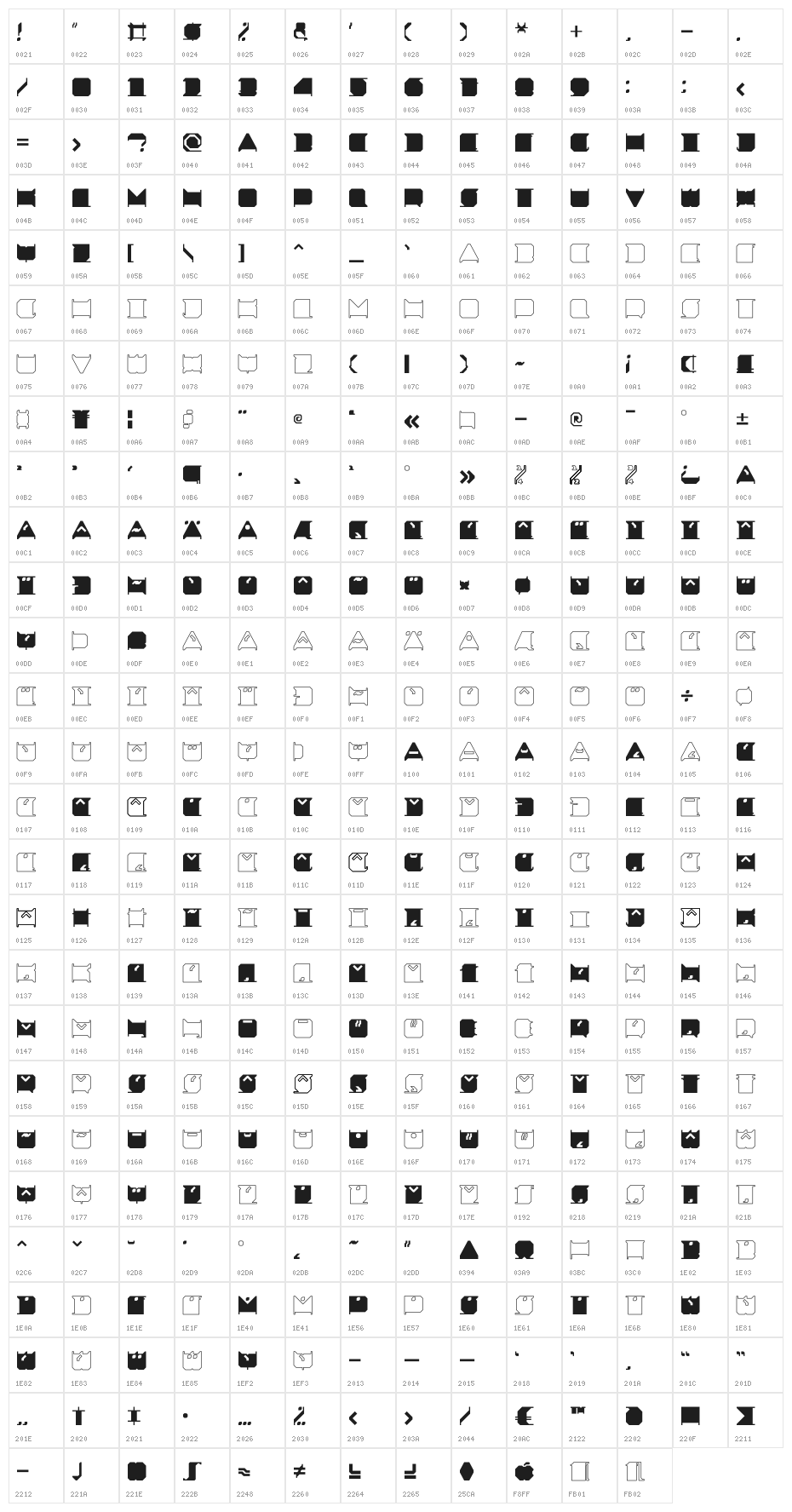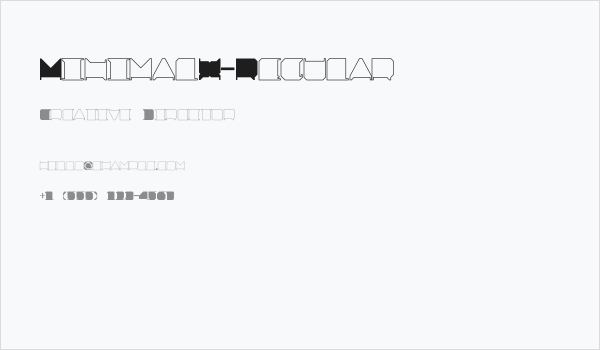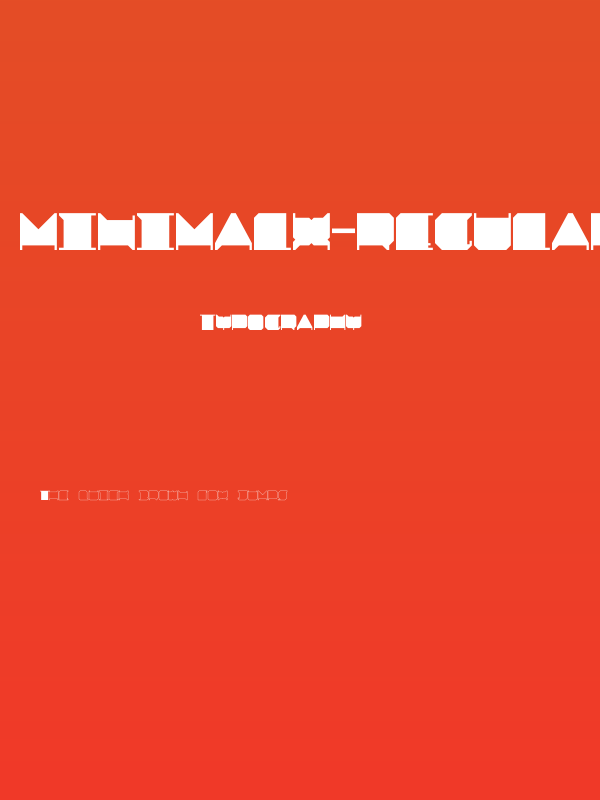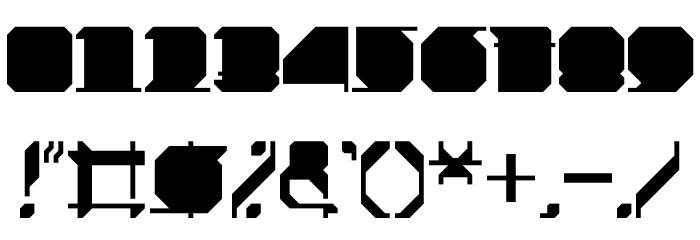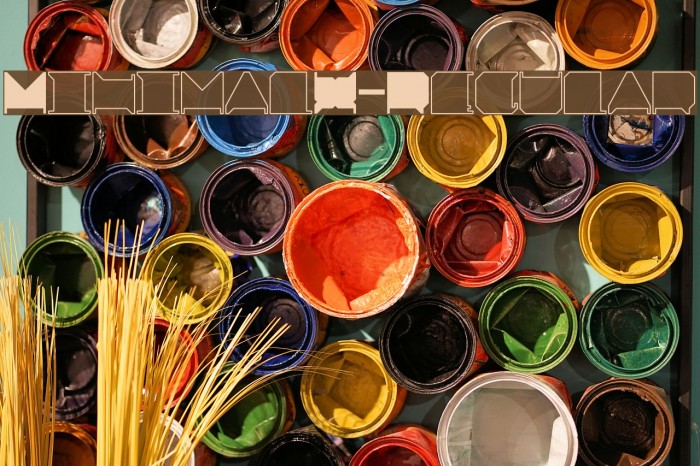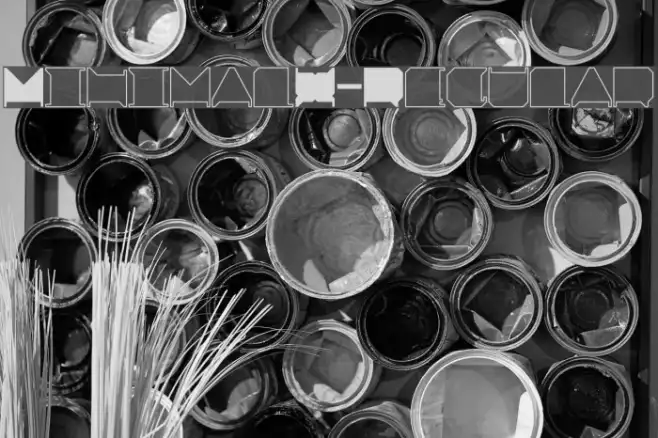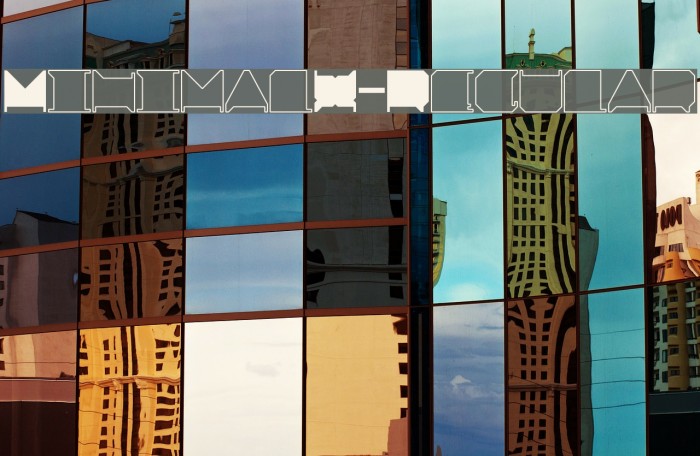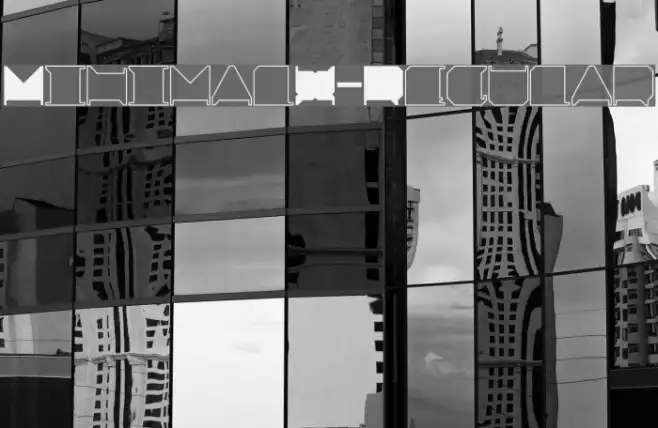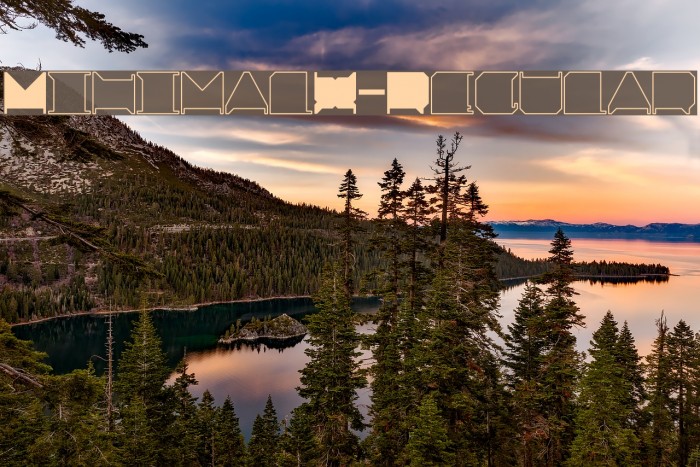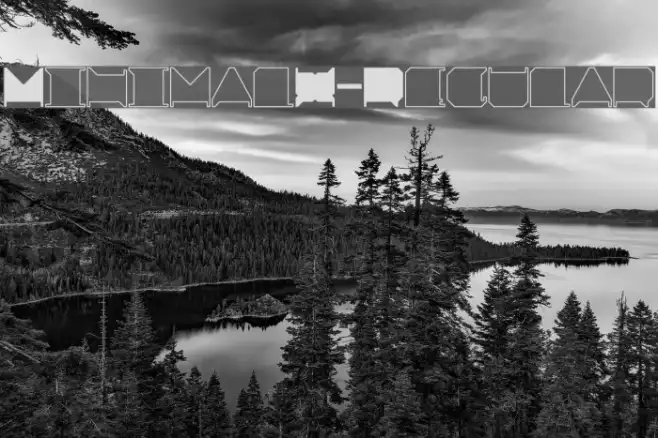
MinimalX-Regular Font
MinimalX-Regular Description
This font features a bold, geometric design with a futuristic and industrial feel. The uppercase letters are constructed with solid, block-like shapes, while the lowercase letters maintain a similar structure but with a slightly more open and airy appearance. The numbers and special characters follow the same bold, angular style, making them highly distinctive. The font's unique aesthetic is characterized by its sharp angles and thick lines, creating a strong visual impact. It's ideal for projects that require a modern and edgy look.
| Proposed Projects | Ideal for branding, posters, album covers, and any project needing a modern, edgy aesthetic. |